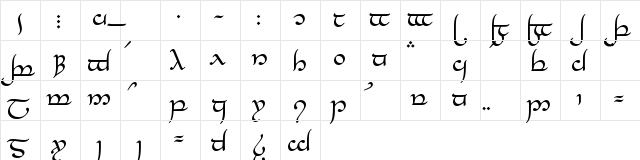
Tengwar-Elesil Normal
| Designer | Noah Kleinschmidt |
Design Context for Tengwar-Elesil Typeface
Tengwar-Elesil takes a measured approach to typography — its balanced proportions and neutral character make it a reliable workhorse for both digital and print work.